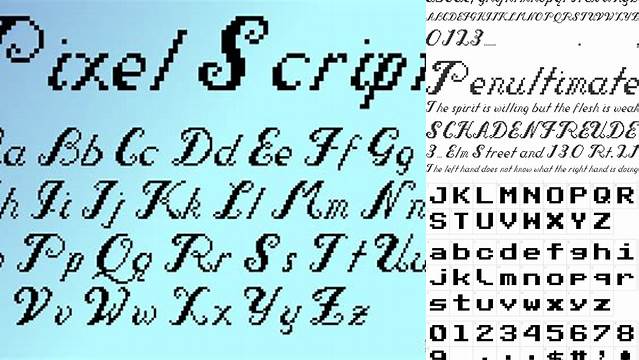
Pixel Fonts: Retro Vibes and Modern Appeal
Pixel fonts, also known as bitmap fonts, evoke a sense of nostalgia, harking back to the golden age of 8-bit video games and early computer interfaces. These fonts are characterized by their distinct blocky appearance, where each character is formed by individual pixels. While they might seem like a relic of the past, pixel fonts are experiencing a significant resurgence in modern design. Their retro aesthetic adds a touch of playfulness and quirkiness to projects, making them a perfect choice for designs that aim to capture a vintage or tech-inspired feel. When we talk about pixel fonts, we're not just talking about a specific style; we're talking about a whole movement of designers and artists who are embracing the simplicity and clarity that these fonts bring to the table.
One of the key reasons for the enduring appeal of pixel fonts is their readability, especially at small sizes. In a world where screen resolution varies greatly across devices, pixel fonts offer a reliable way to ensure that your text remains legible, even on low-resolution displays. The sharp, defined edges of the pixels create clear and distinct characters, minimizing the blurring or distortion that can occur with smoother fonts. This makes them particularly well-suited for interface design, where clarity and usability are paramount. Imagine a mobile game interface, a retro-themed website, or even a minimalist app design – pixel fonts can seamlessly integrate into these contexts, providing a nostalgic yet functional touch.
Beyond their practicality, pixel fonts also possess a unique visual charm. The blocky, geometric shapes of the characters create a sense of structure and order, while the inherent limitations of the pixel grid encourage creativity and experimentation. Designers often use pixel fonts to create logos, icons, and other graphic elements, leveraging their distinctive style to craft memorable and impactful visuals. The bold, geometric nature of pixel fonts means they often work best in headlines, titles, and other places you want to make an impact. Consider the way a pixel font instantly grabs your attention on a website header or how it might bring a sense of nostalgia to a poster design. The possibilities are truly endless.
The charm and versatility of pixel fonts extend to a wide range of applications. From video game graphics and website headers to app interfaces and branding materials, these fonts offer a unique way to express your creativity and connect with your audience. By embracing the retro aesthetic of pixel fonts, you can create designs that are both visually striking and functionally sound, ensuring that your message is communicated effectively and memorably. So, go ahead and explore the world of pixel fonts – you might just discover your new favorite typeface! The way a pixel font can evoke memories and bring a touch of vintage charm to a modern design is a testament to their lasting appeal.
Cursive Fonts: Elegance and Personality in Every Stroke
Cursive fonts, also known as script fonts, are characterized by their flowing, handwritten style. They mimic the graceful strokes of calligraphy, adding a touch of elegance and personality to any design. Unlike more rigid typefaces, cursive fonts possess a fluidity and expressiveness that can evoke a range of emotions, from warmth and intimacy to sophistication and luxury. If you are looking for something that is elegant and personal, then a free cursive font might be the right direction for you.
The beauty of cursive fonts lies in their ability to create a sense of connection with the viewer. The handwritten quality of these fonts makes them feel more personal and authentic, as if the message was crafted specifically for the recipient. This makes them a popular choice for invitations, greeting cards, and other materials that aim to convey a sense of warmth and intimacy. Imagine a wedding invitation adorned with a delicate cursive font or a heartfelt thank-you note penned in a flowing script – the visual impact is undeniable.
However, the versatility of cursive fonts extends far beyond personal correspondence. These fonts can also be used to add a touch of sophistication and elegance to branding materials, websites, and other professional designs. A well-chosen cursive font can elevate a logo, create a memorable headline, or add a touch of personality to a website's overall aesthetic. The key is to use cursive fonts judiciously, ensuring that they complement the overall design and enhance the message, rather than overwhelming it.
Finding the right cursive font requires careful consideration of the design's purpose and target audience. Some cursive fonts are delicate and feminine, while others are bold and assertive. Some are formal and traditional, while others are playful and whimsical. The vast array of cursive fonts available ensures that you can find the perfect match for your project, but it also means that you need to be mindful of the message you want to convey.